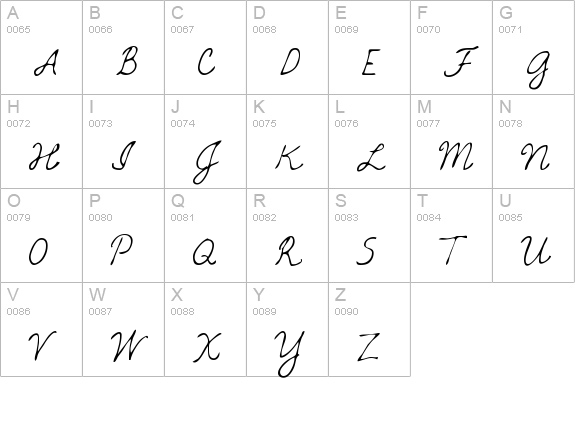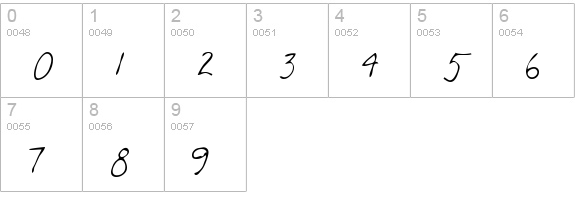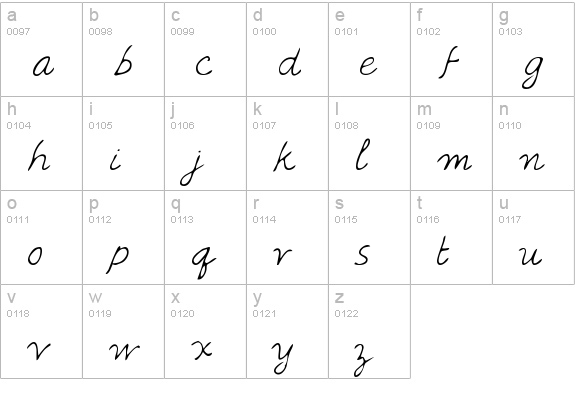
DarlenesHand Regular Font Details
DarlenesHand Regular is the standard, neutral variant in the DarlenesHand typeface family \xE2\x80\x94 well suited to general body text, paragraphs, and standard typographic work.
DarlenesHand Regular is a charming and elegant handwritten font that adds a personal touch to any project. With its flowing lines and delicate curves, this font exudes a sense of warmth and friendliness. Perfect for invitations, greeting cards, logos, and more, DarlenesHand Regular is versatile and easy to read. Best of all, DarlenesHand Regular is available for free download at FontsMarket.com. Whether you're a designer looking to add a unique flair to your work or someone in need of a beautiful font for personal projects, DarlenesHand Regular is a fantastic choice. Download it today and elevate your designs with this lovely handwritten font.